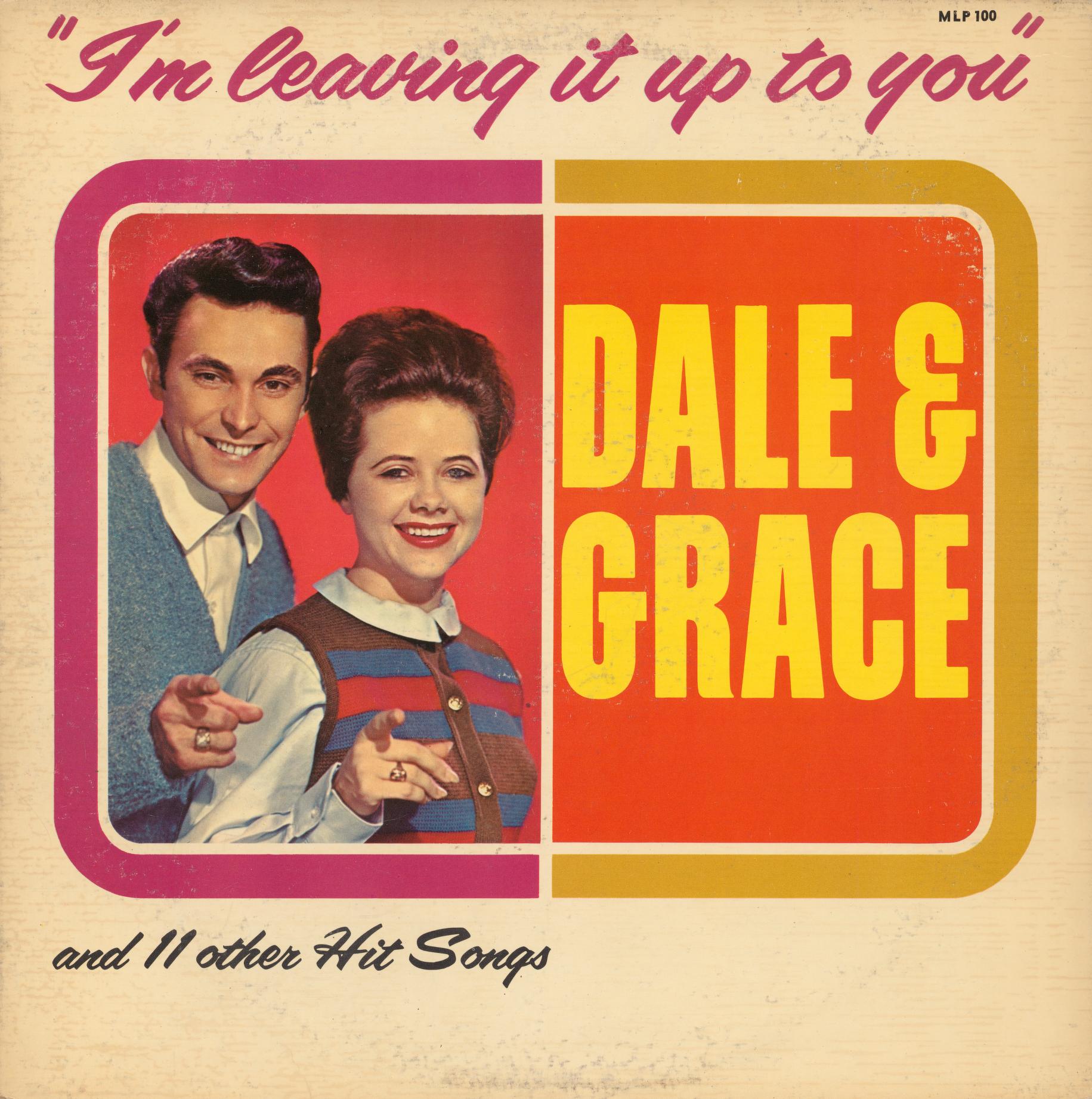
Anyone recognize the font that says "Dale & Grace" because I know the other one is Filmotype LaSalle?
Filmotype Garnet seems a likely candidate, with some modification to the crossbars of the ampersand and G.